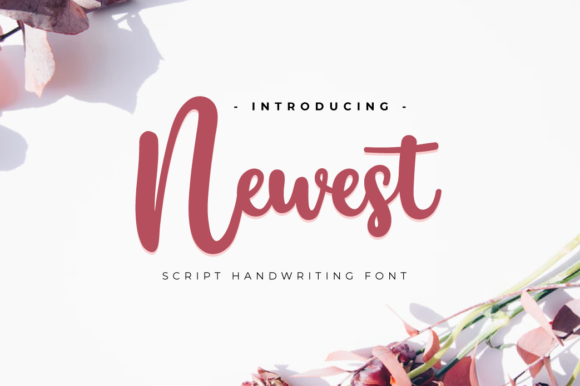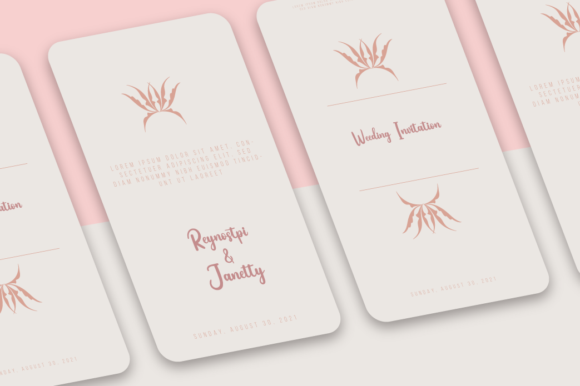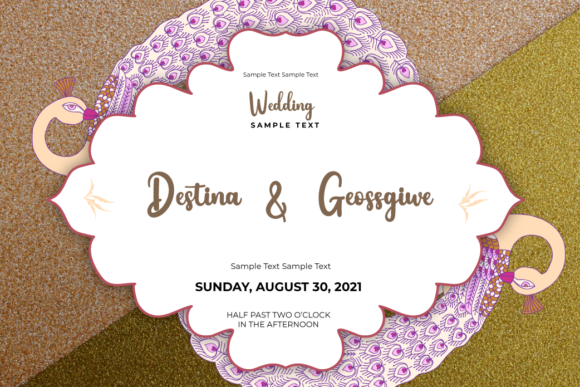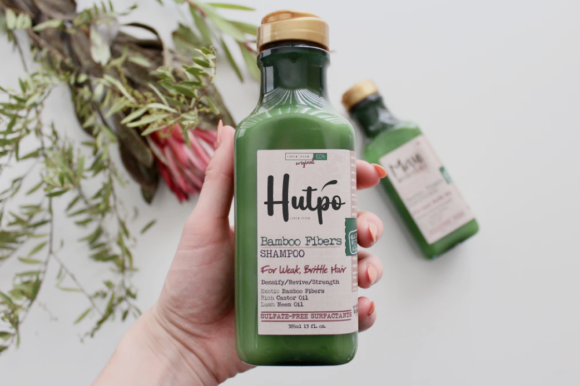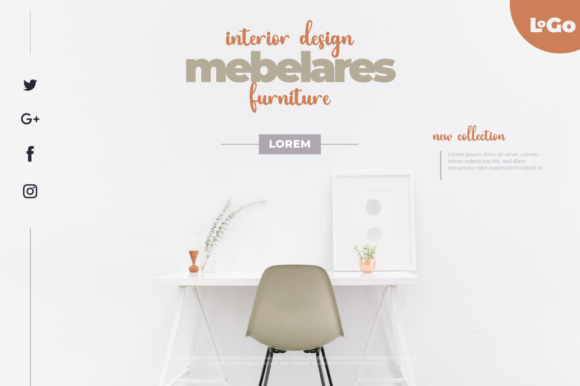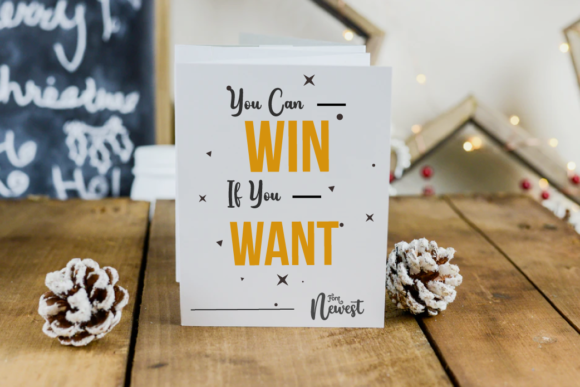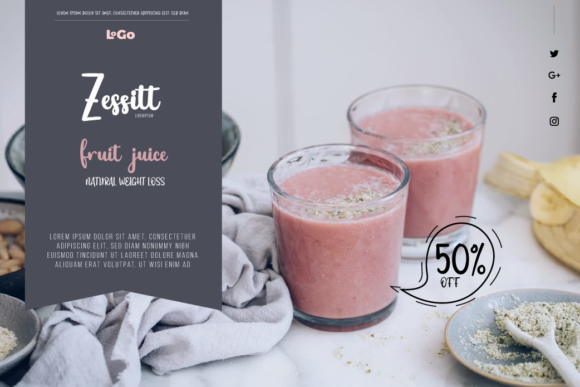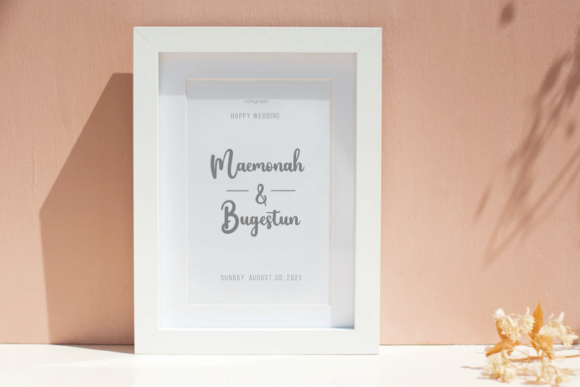
Newest Font
Newest is a charming and trendy brushed handwritten font that brings a sweet and modern touch to your designs. Its distinct and well-rounded letters make it stand out, creating a unique and eye-catching look. Whether you’re designing logos, branding materials, social media posts, or any other creative project, Newest is sure to make a statement.
The brush-like strokes of Newest give it a natural and authentic feel, adding a touch of warmth and personality to your designs. Its versatility allows it to adapt to various design styles and themes, making it suitable for a wide range of projects. From playful and fun to elegant and sophisticated, Newest can effortlessly adapt to your creative vision.
The adaptability of Newest makes it a valuable asset in your design toolkit. Its well-rounded letters and smooth curves lend themselves well to both bold and subtle applications. Whether you’re looking to create bold headlines or add a delicate touch to your designs, Newest is up to the task.
Fall in love with the versatility of Newest and explore its potential in creating spectacular designs. Its adaptable style allows it to be used in a variety of contexts, from branding and packaging to social media graphics and invitations. Let its distinct and well-rounded letters be the centerpiece of your designs and watch as they come to life.
In summary, Newest is a sweet and trendy brushed handwritten font that offers versatility and adaptability. Its distinct and well-rounded letters make it a masterpiece, capable of creating spectacular designs. Embrace the charm of Newest and unleash your creativity to create captivating and eye-catching visuals.